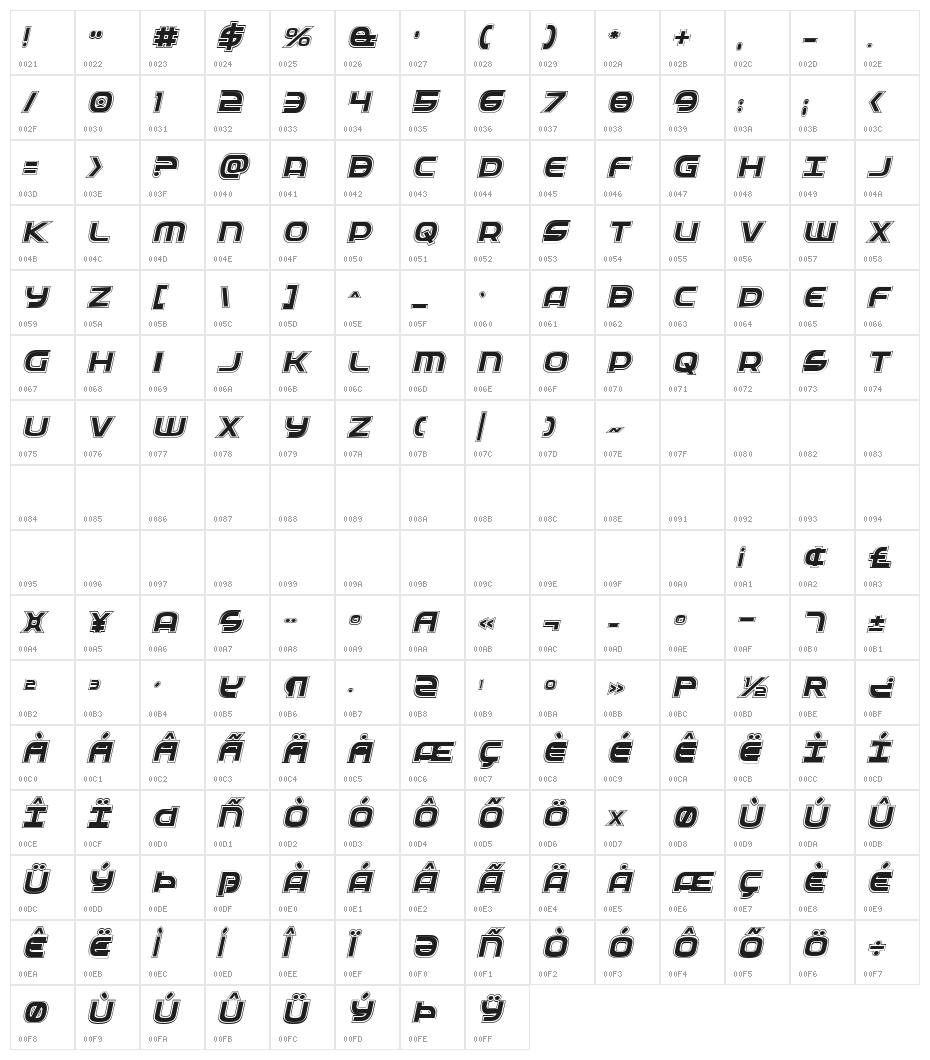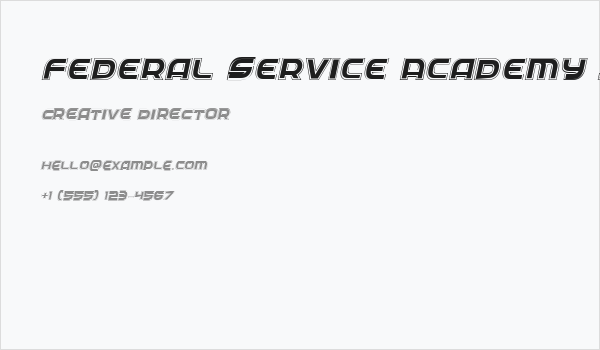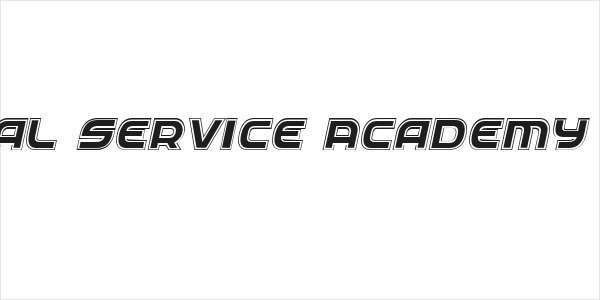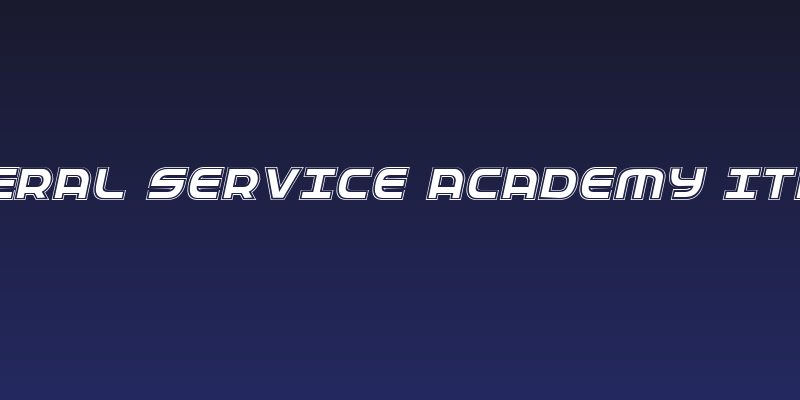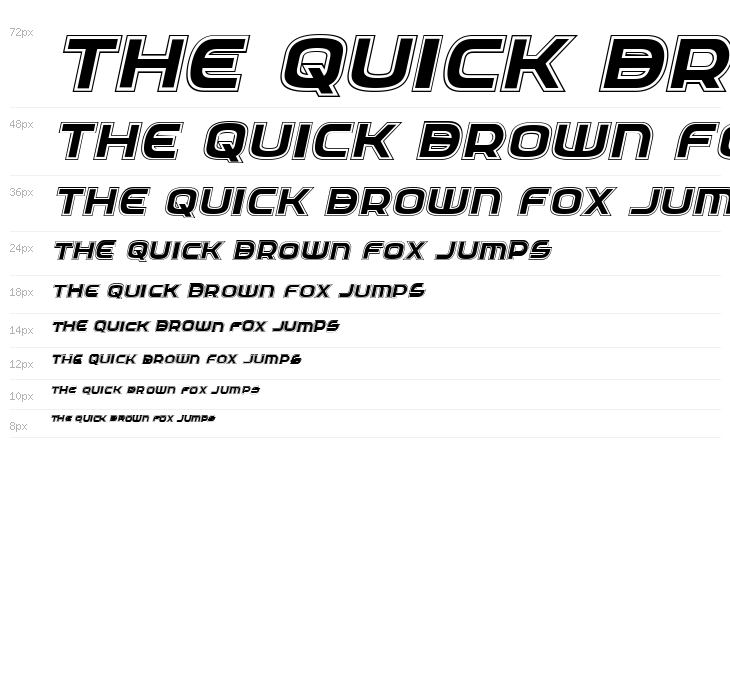
Federal Service Academy Italic Font
Federal Service Academy Italic Description
This font features a bold, italicized style with a distinct outline that gives it a three-dimensional appearance. The characters are uppercase and lowercase letters, numbers, and a variety of special symbols. The design is modern and dynamic, with a strong emphasis on geometric shapes and clean lines. The italic slant adds a sense of motion and speed, making it ideal for attention-grabbing headlines or logos. The overall look is sleek and professional, suitable for projects that require a contemporary and impactful typeface.
| Proposed Projects | Ideal for sports branding, dynamic logos, modern posters, and eye-catching headlines. |